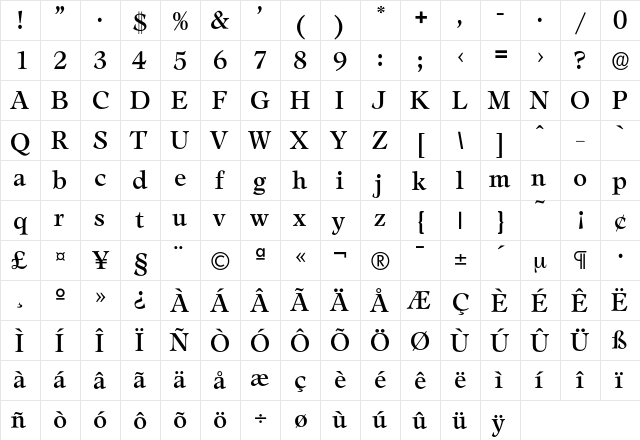
Leamington-Medium Regular Font Preview
Leamington-Medium Regular
Leamington-Medium Regular Font Details
Design Context for Leamington-Medium Typeface
Leamington-Medium is a composed and adaptable typeface that performs quietly and consistently across a wide range of design contexts.